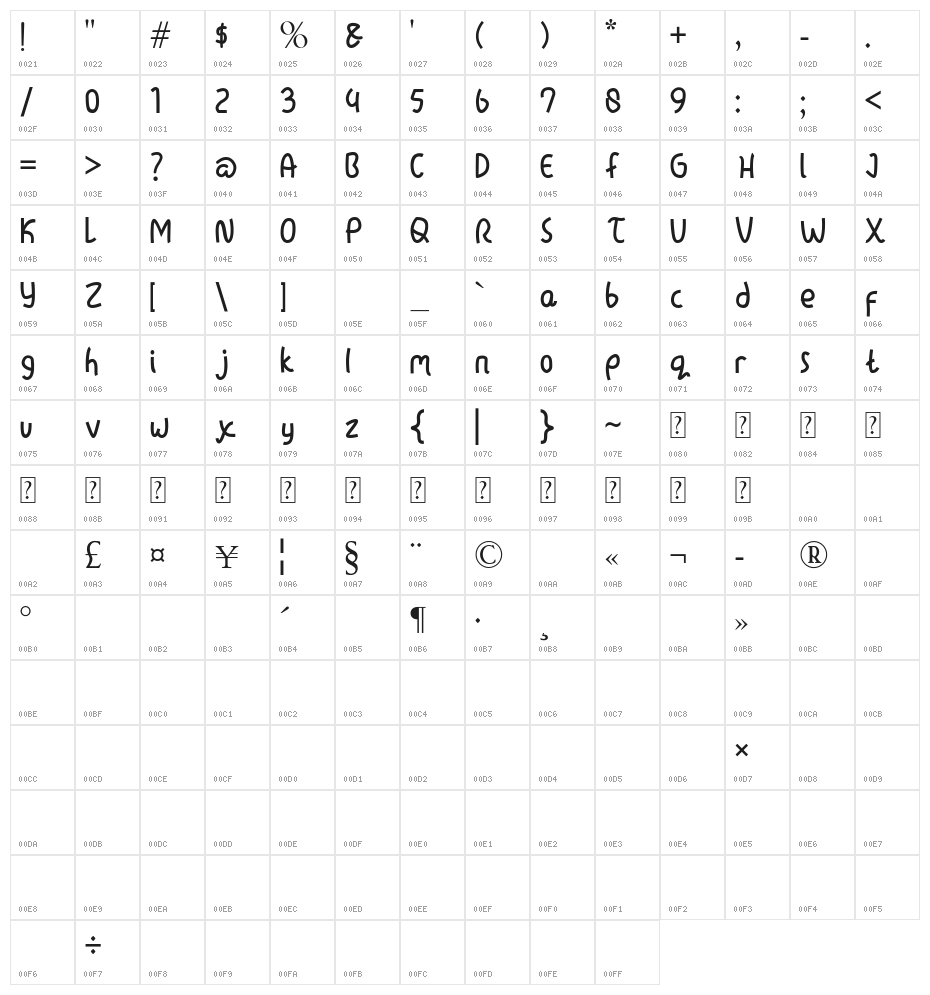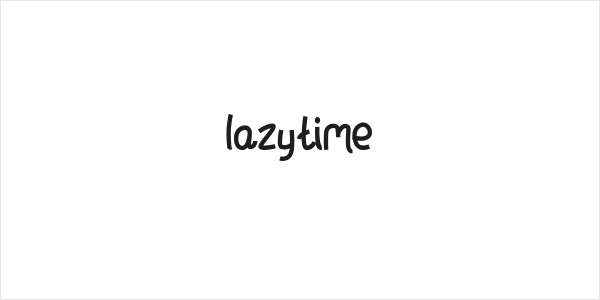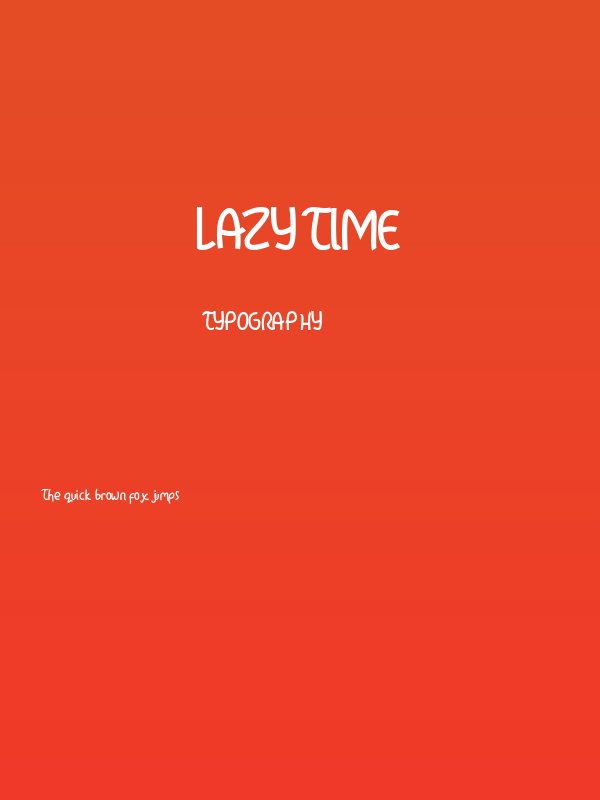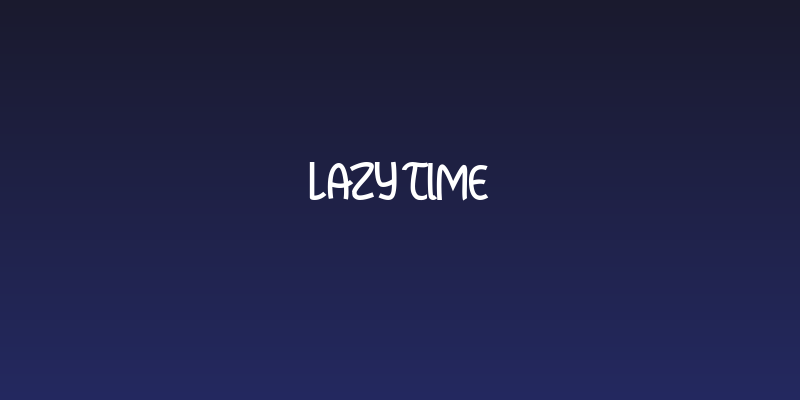
lazytime Font
lazytime Description
This playful and whimsical font features a handwritten style with a casual and friendly appearance. The characters are slightly irregular, giving it a unique and personal touch. The strokes are smooth and rounded, creating a sense of warmth and approachability. The uppercase and lowercase letters maintain a consistent style, with some letters having distinctive loops and curves. The numbers and special characters are designed to match the overall playful aesthetic, making it suitable for creative and informal projects.
| Proposed Projects | Ideal for children's books, greeting cards, playful branding, and informal invitations. |